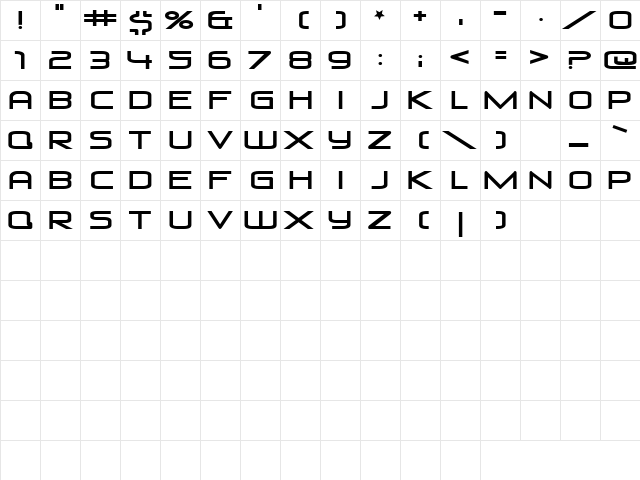
Venus Rising Regular
Design Context for Venus Rising Typeface
Venus Rising offers clean, dependable letterforms without strong stylistic allegiance, making it a practical choice for designers who need flexibility.
Pro Tip: Pair Venus Rising with a font of contrasting weight or personality to build a more expressive typographic hierarchy.